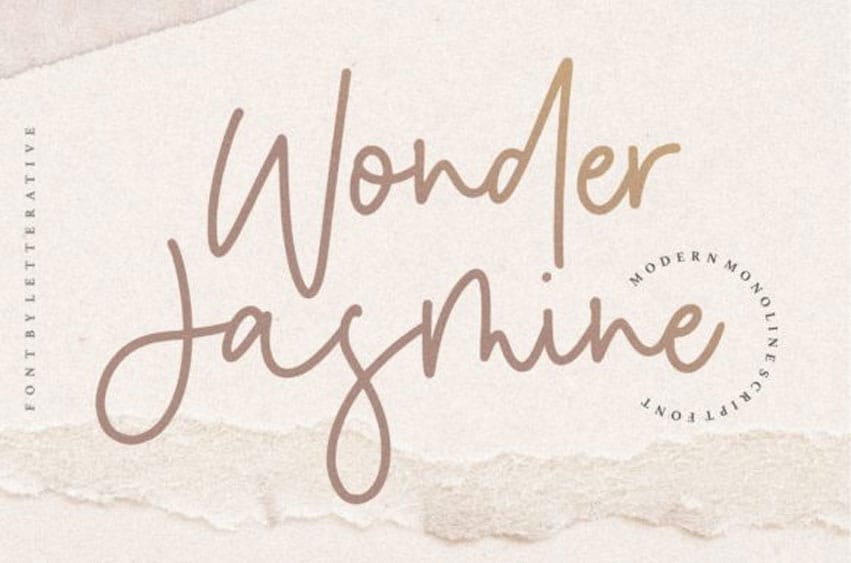
Wonder Jasmine Font is a sweet and relaxed handwritten font.
Its natural yet stylish feel makes it incredibly fitting to a large pool of designs.
Wonder Jasmine Font is a sweet and relaxed handwritten font.
Its natural yet stylish feel makes it incredibly fitting to a large pool of designs.